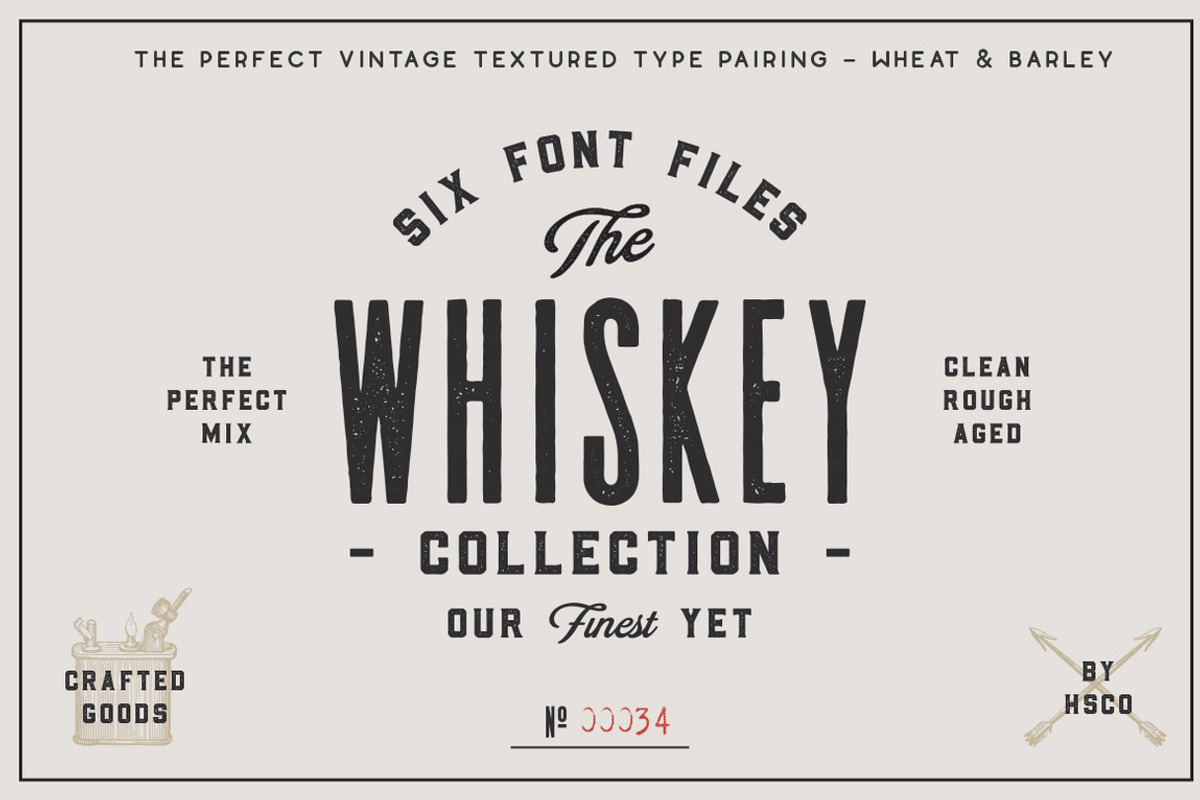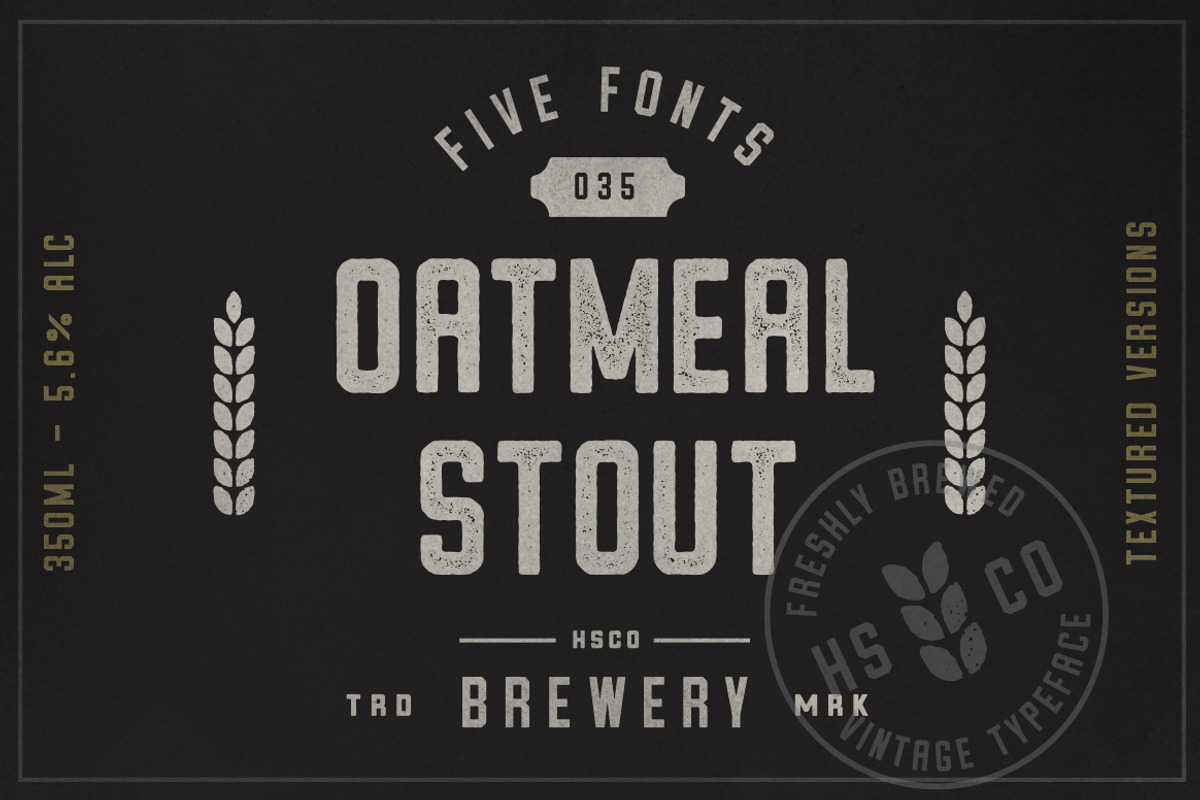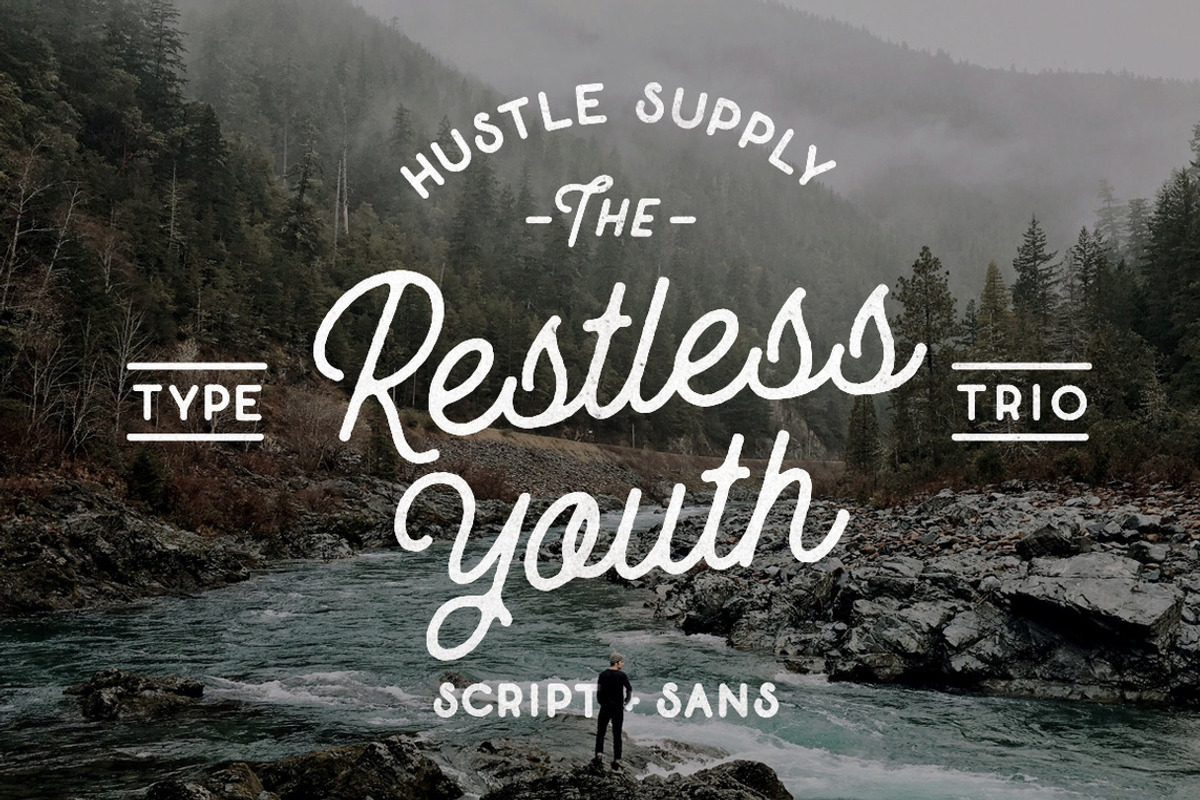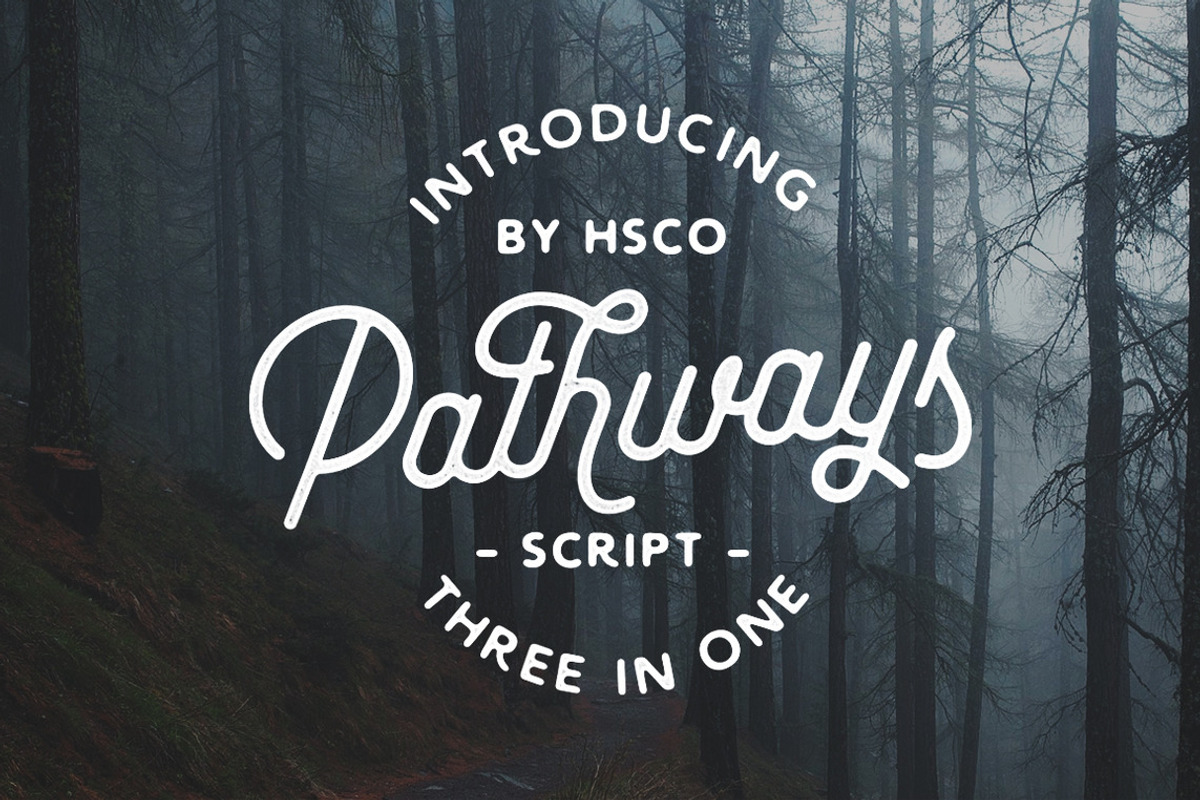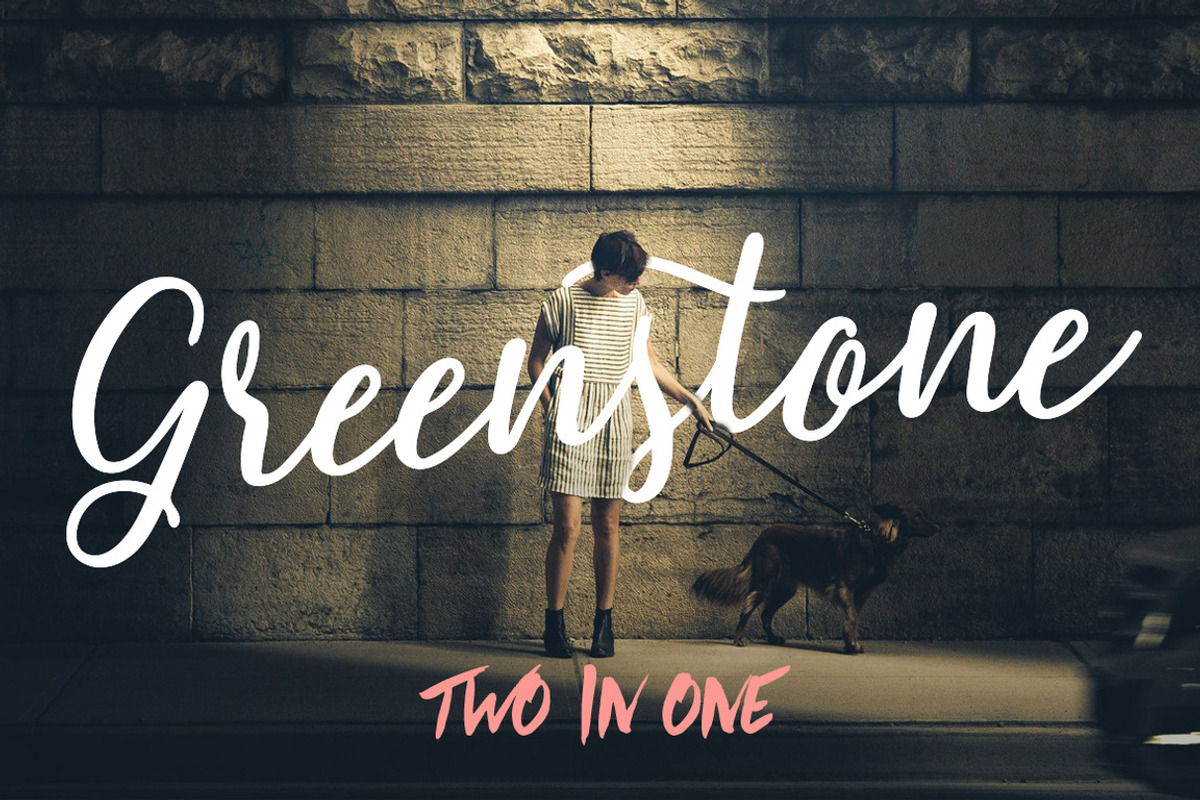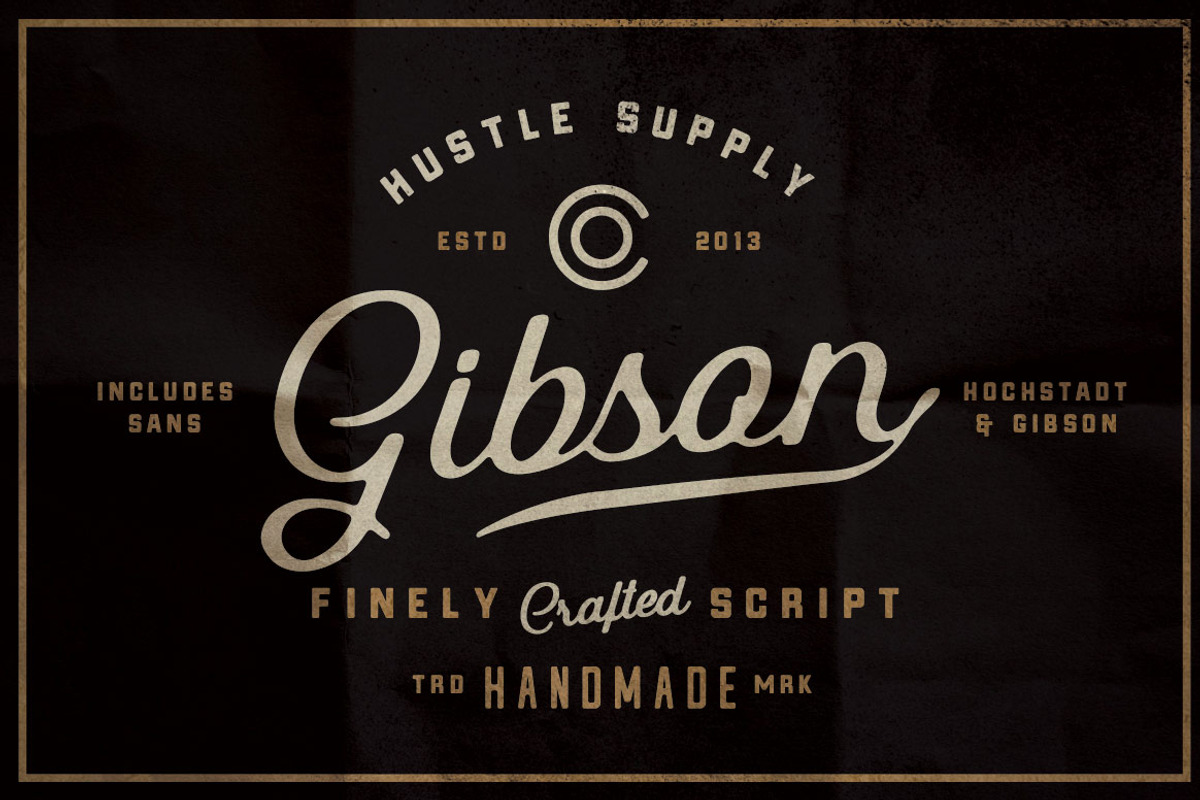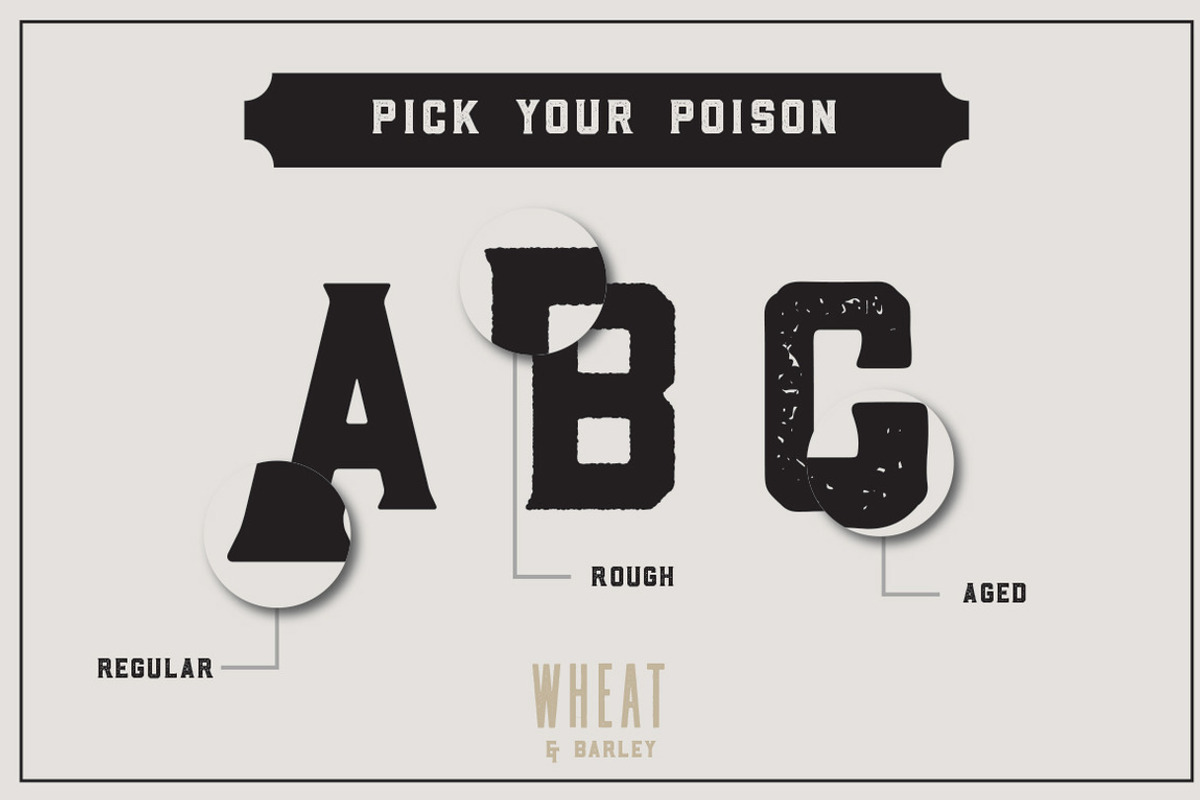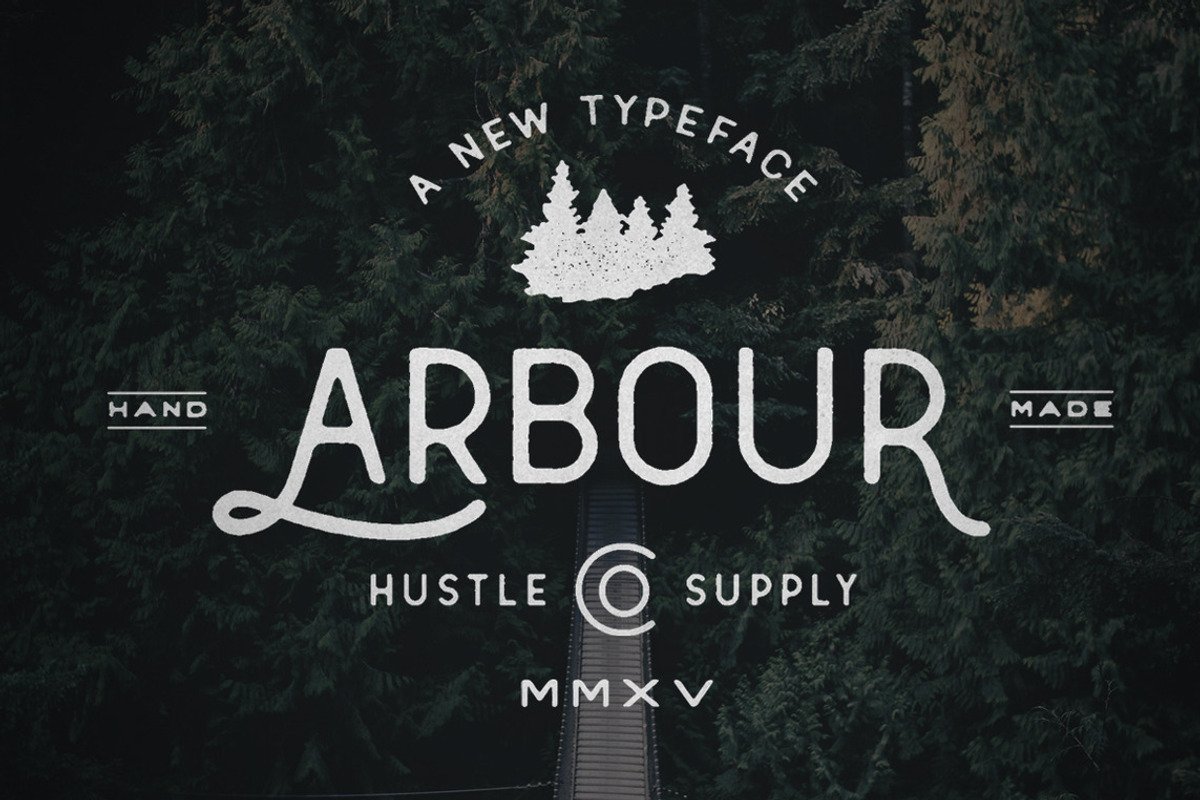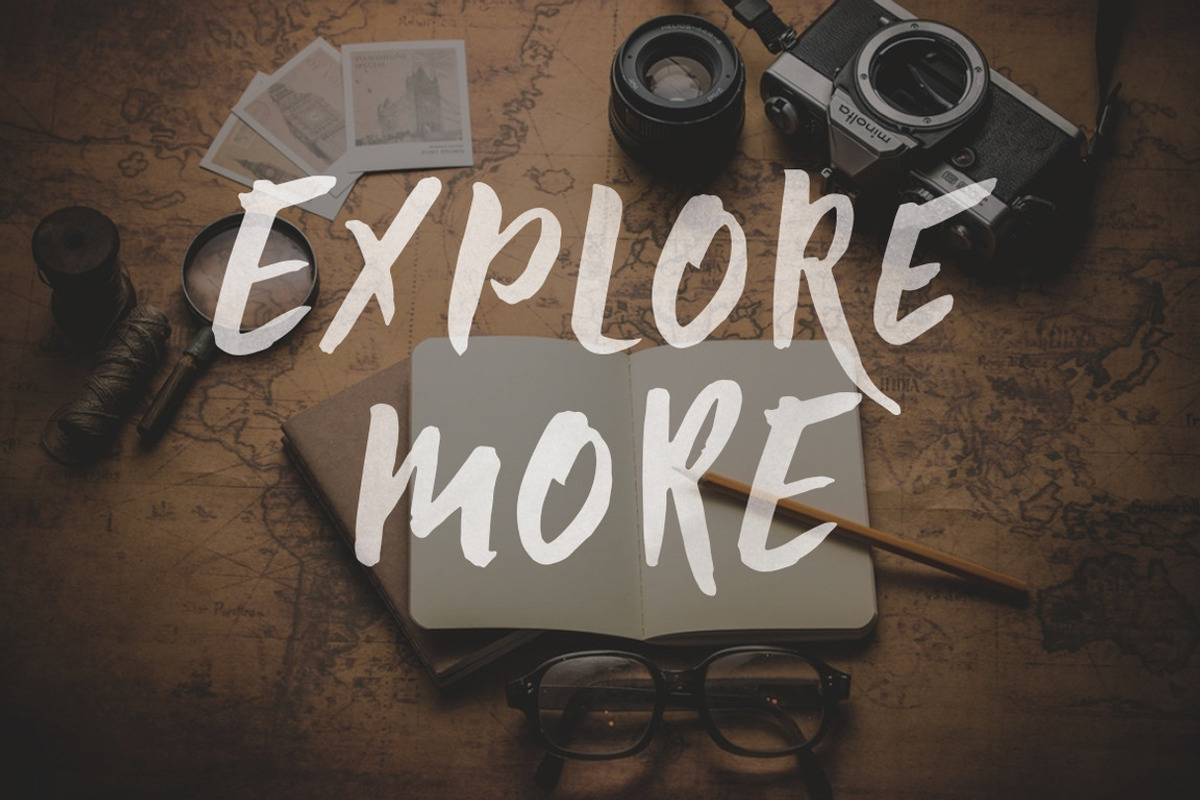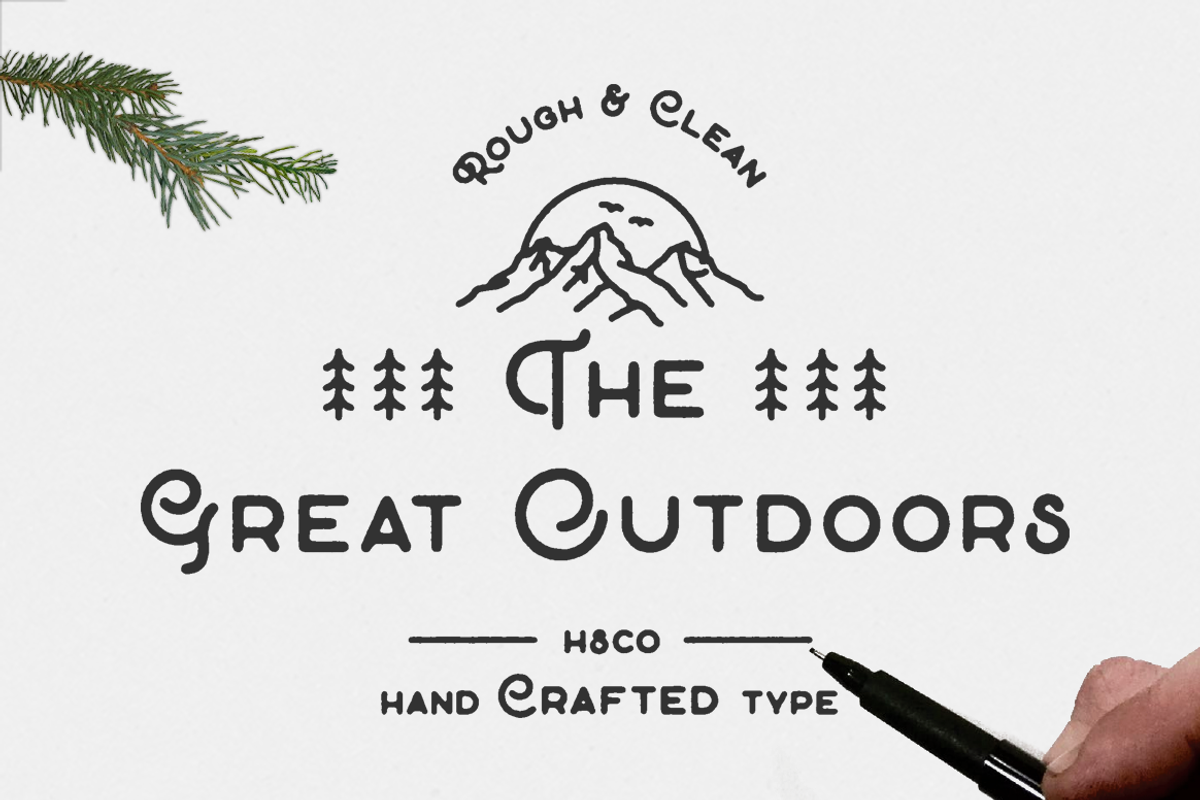
The Giant Bundle by Hustle Supply Co.
The Giant Bundle is a collection of 50+ fonts consisting of 12 high selling products by Jeremy Vessey. Including best selling products The Whiskey Font Collection, Yorkshire, The Restless Youth Trio, Oatmeal Stout, Gibson Script, The Cast Iron Family, Hustle Script, Pathways, Hochstadt, Greenstone + Summer Hearts, The Great Outdoors & Arbour.